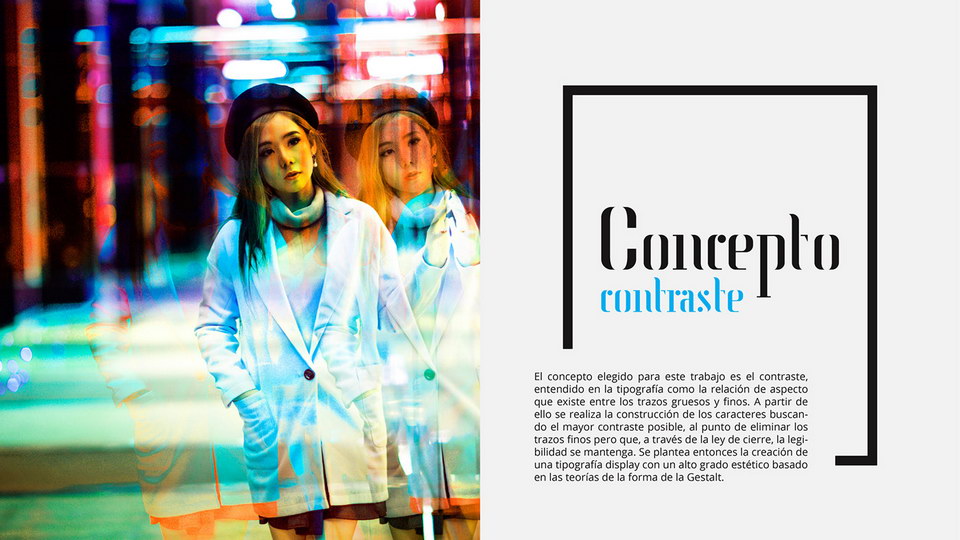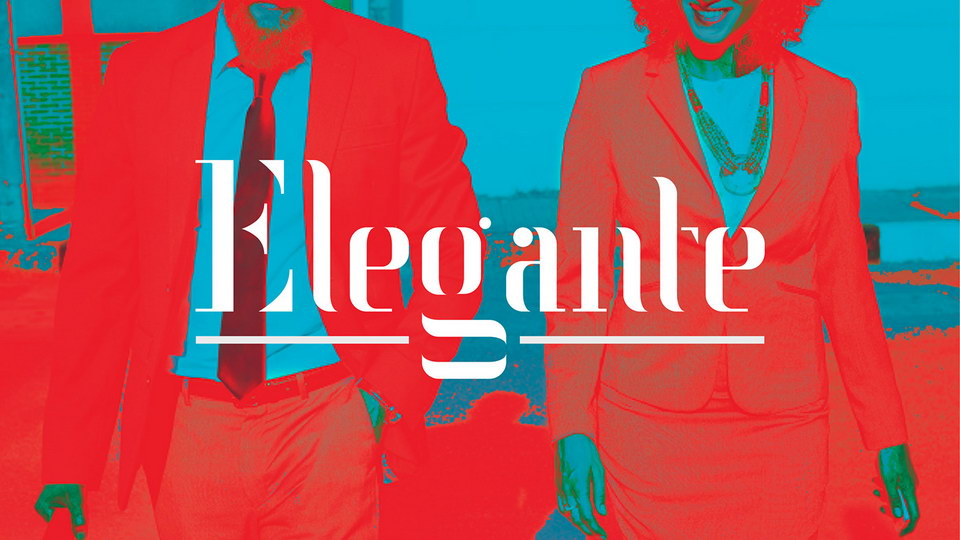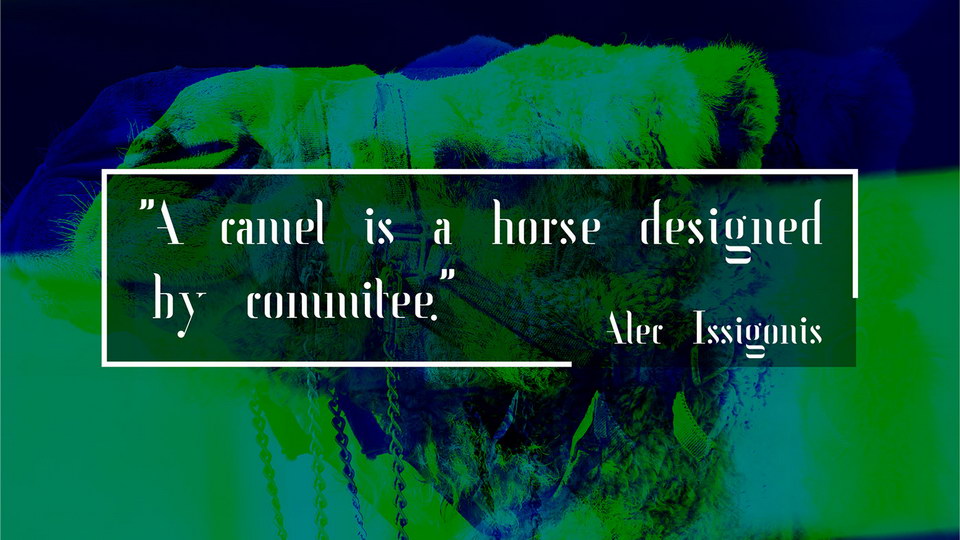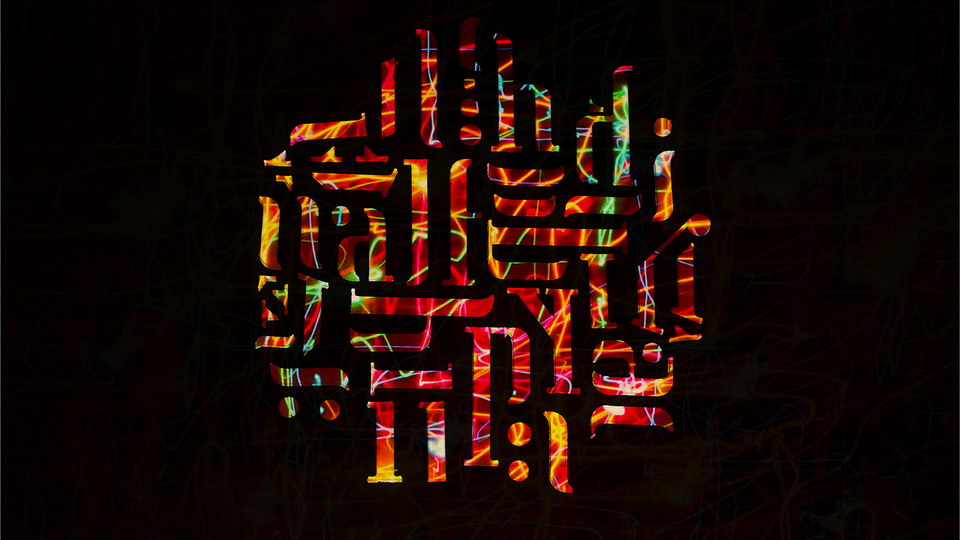
Stuff Font
Stuff is a display font, where contrast is at the heart of the design, resulting in an original and attractive typeface.
Stuff is perfect for branding projects, home-ware designs, product packaging, magazine headers – or simply as a stylish text overlay to any background image.
Designed by: Santiago Cajal